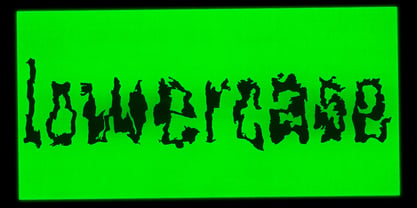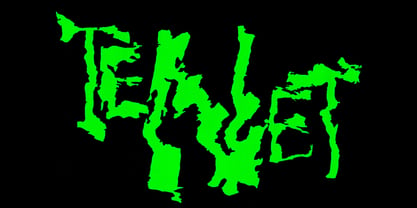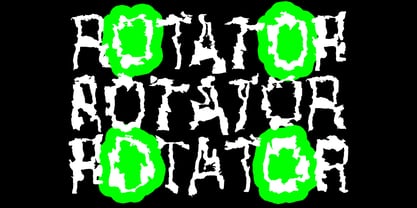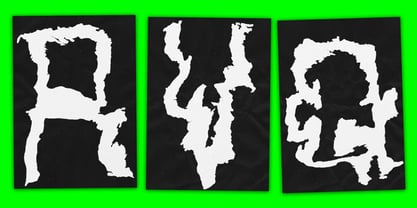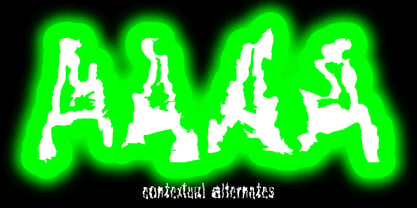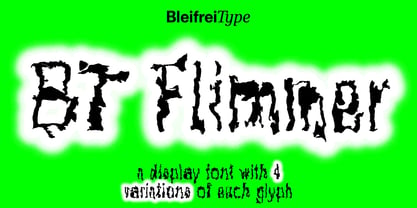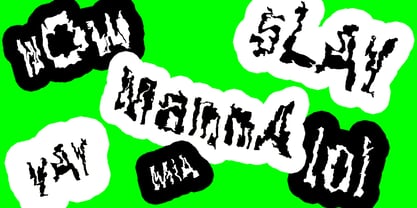
BT Flimmer
by Bleifrei Type
The BT Flimmer Font Family was designed by Florian Beyeler and published by Bleifrei Type. BT Flimmer contains 1 styles. More about this family
BT Flimmer is a display font that offers a unique and constantly changing appearance. The font was created by photographing glyphs through a textured vase filled with water, resulting in multiple variations of each character. This gives BT Flimmer its distinct and jagged look. What sets BT Flimmer apart is its vast library of alternate characters. Each letter and number has four different variations, ensuring that you'll never see two consecutive characters that look the same. With contextual alternates, the font offers a diverse and fluid range of characters.